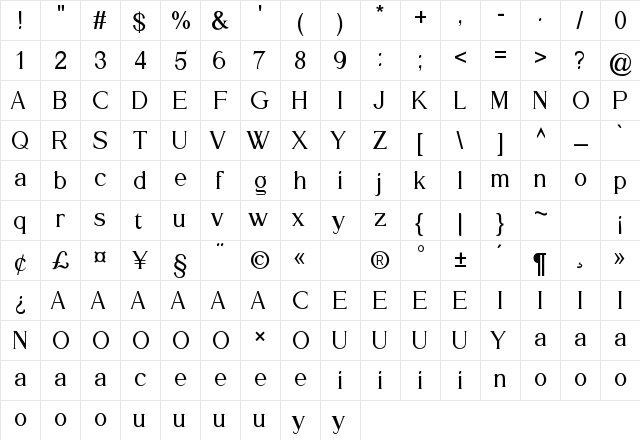
Galapagos Demo Regular
| Foundry | Embun Studio |
| Designer | Aditya Rezki Apriyadi |
Design Context for Galapagos Demo Typeface
Galapagos Demo is a composed and adaptable typeface that performs quietly and consistently across a wide range of design contexts.